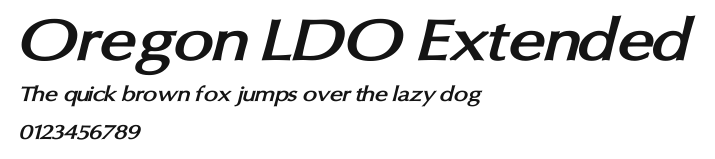
• Font Name: Oregon LDO Extended
• Font Style: Bold Oblique
• Full Font Name: Oregon LDO Extended Bold Oblique
• Designer: Luke Owens
Oregon LDO Extended.ttf is a modern, elegant sans-serif font designed for ultimate readability and visual harmony. Perfect for branding, headlines, web design, and print materials.